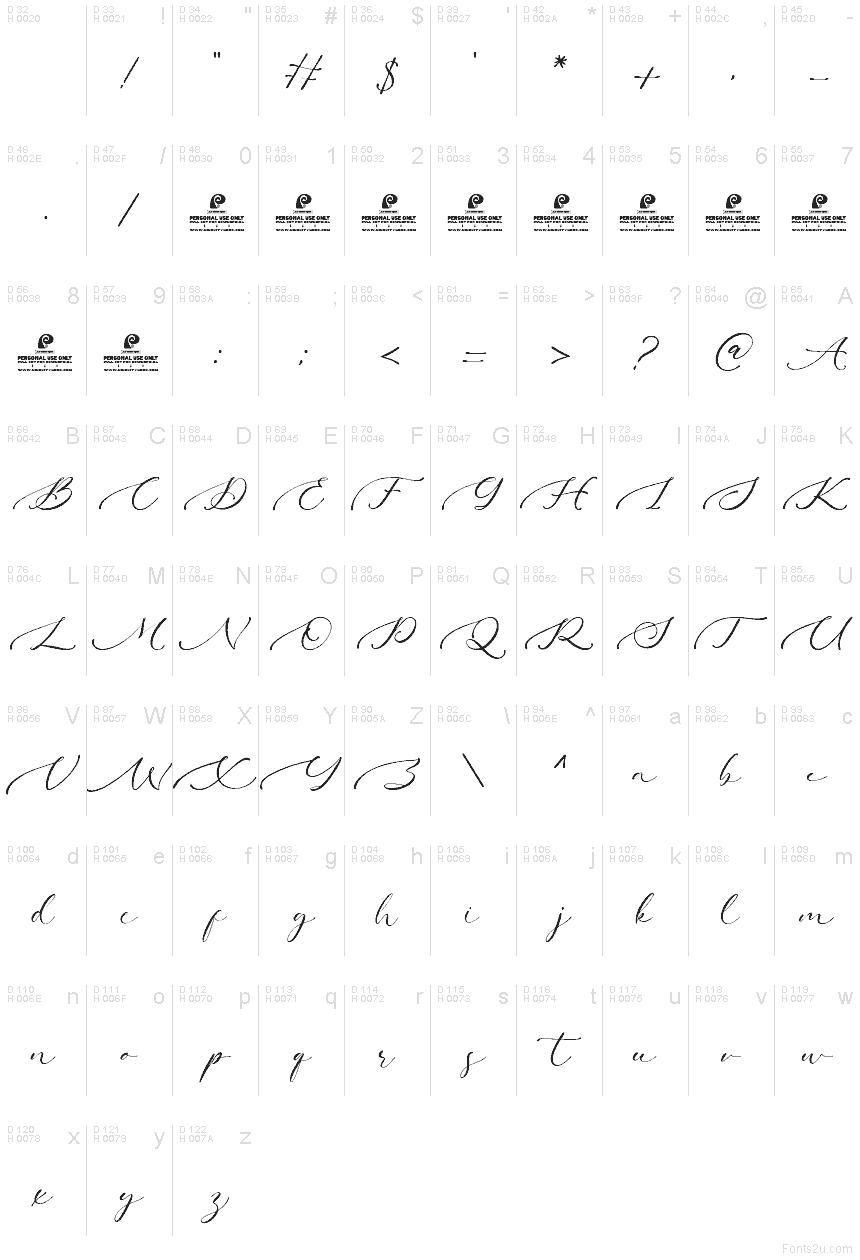
Darling Buttery DEMO
Darling Buttery font by Prioritype Co is a free calligraphy font, light in weight and with a handwritten style. Its elegant elements and expressive details give it an overall sophisticated or luxurious appearance. Additionally, flowing lines add to the natural look of the script which will capture everyone’s eye.
Use it for creative investments such as book covers, advertising and product labels, supported nonverbal communication projects, digital designs like logos or branding, fashion magazines’ covers or titles, posters and flyers related to makeup events or weddings.